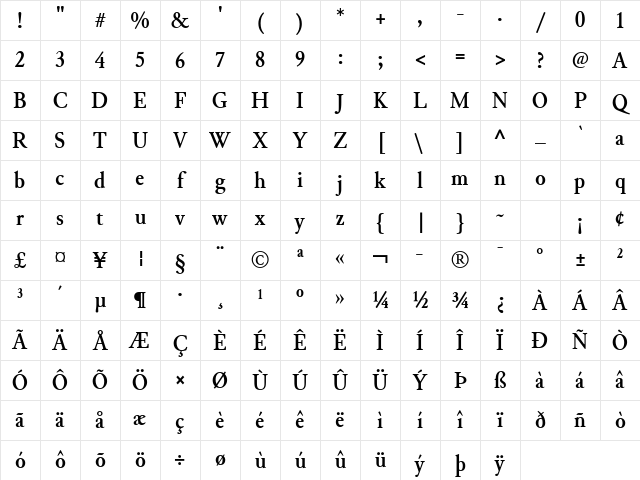
Complete JuniusX SemiCondensed Semibold glyph index. Displaying only characters natively supported by JuniusX SemiCondensed Semibold font.
JuniusX is a composed and adaptable typeface that performs quietly and consistently across a wide range of design contexts. Its bold stroke weight gives it real presence on the page. Its narrow stance lets it pack a punch even in space-constrained designs.
Pro Tip: Use JuniusX in both headline and body roles to test its range before committing to a single application.